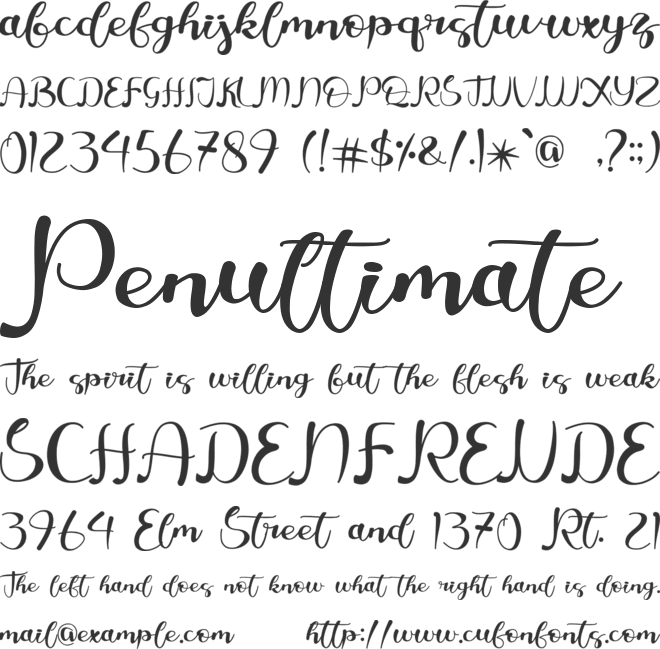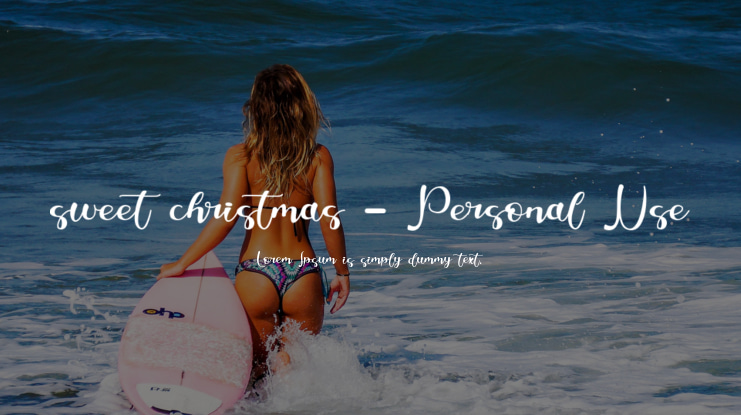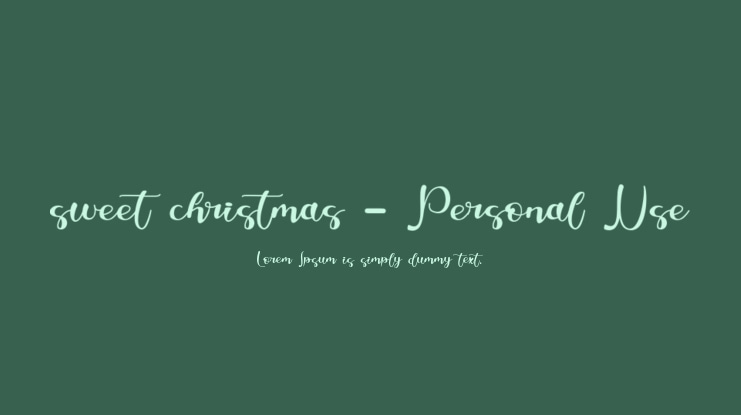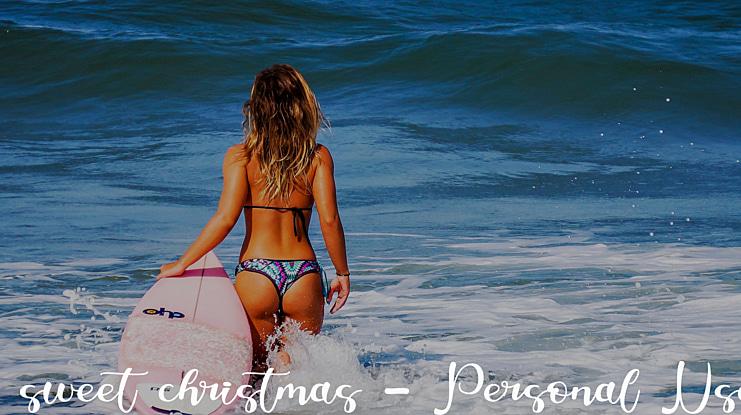
sweet christmas - Personal Use Font
Sweet Christmas is a modern handwritten font by Letterafa. It has flowing letters that will give your designs a unique and sweet look. Sweet Christmas font is perfect; greeting cards, a package design, a brand identity, craft design, any DIY project, book title, wedding invitation, packaging, and more.